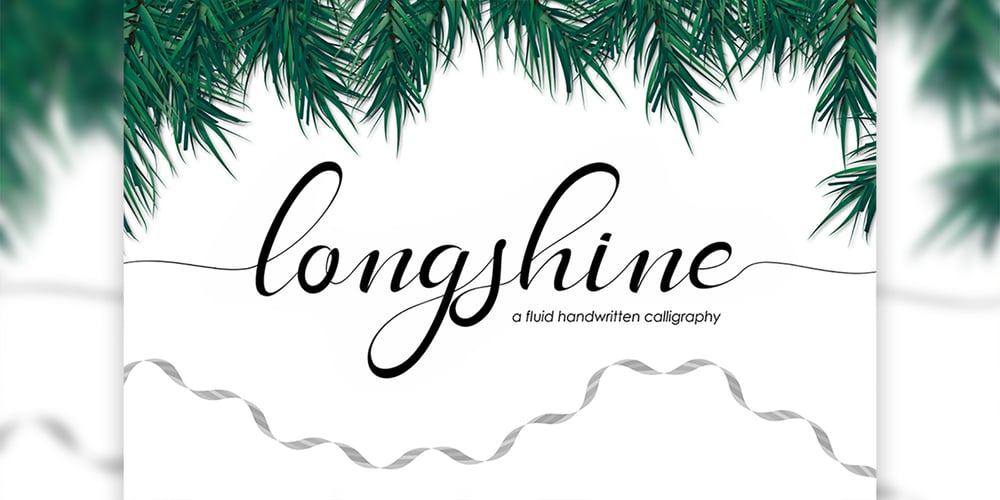
Long Shine Script Font Family was designed by Rachma and published by BonjourType. Long Shine Script contains 1 styles and family package options. LongShine Script is a fluid handwritten calligraphy fonts, combining calligraphy typefaces with a free flowing and moving baseline. It has a casual, yet elegant touch.Features 275 glyphs. Including initial and terminal letters, alternates, ligatures and multiple language support.Can be used for various purposes. such as headings, signature, logos, wedding invitation, t-shirt, letterhead, signage, lable, news, posters, badges etc.